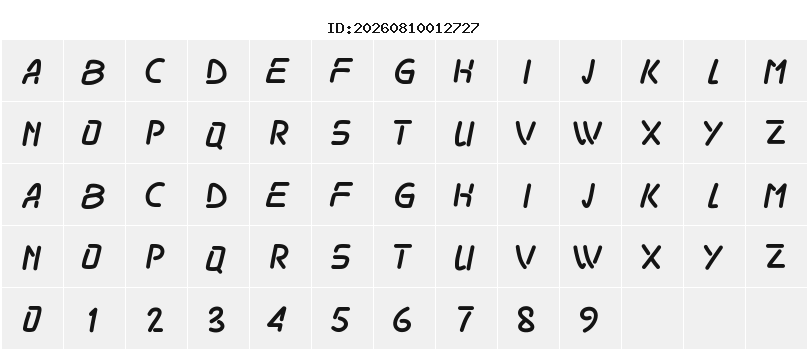
• Font Name: PWOdissey
• Font ID: PeaxWebdesign:PWOdissey
• Full Font Name: PWOdissey
• PostScript Name: PWOdissey
• Character Count: 65
About PWOdissey.ttf
PWOdissey.ttf is a modern, elegant sans-serif font designed for ultimate readability and visual harmony. Perfect for branding, headlines, web design, and print materials.